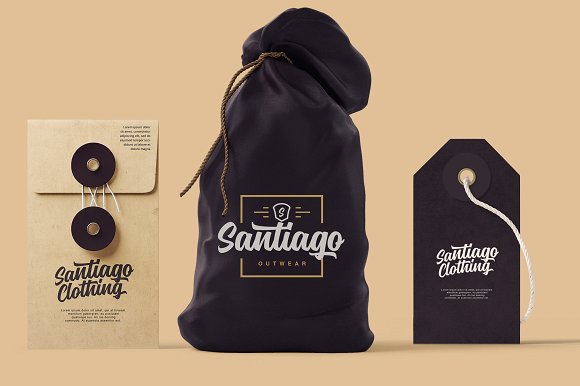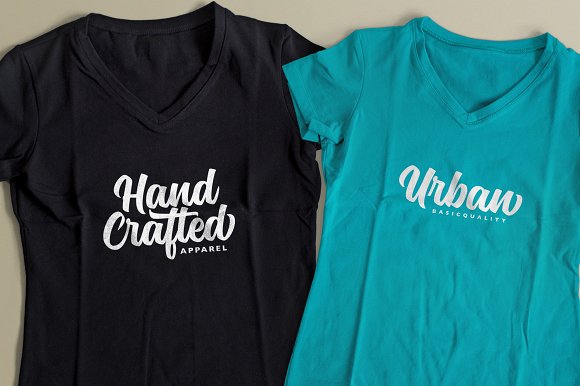
Magnificent Script Font
Glad to introduce to you a script font. Introducing Magnificent Script Font! Magnificent was designed by Alex couture. A professional designer. Magnificent is a script typeface with personality and clean letterforms. It was designed as a display typeface that contains 254 glyphs in total to improve your design. You can use it as a logo, badge, insignia, packaging, headline, poster, t-shirt/apparel, greeting card, and wedding invitation. The flowing characters are ideal to make an attractive messages, mix and match a bunch of alternative characters to fit your project.